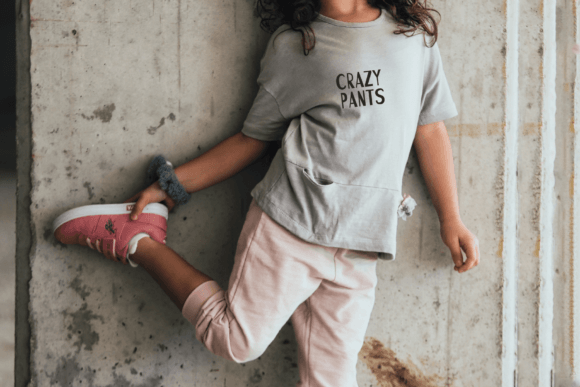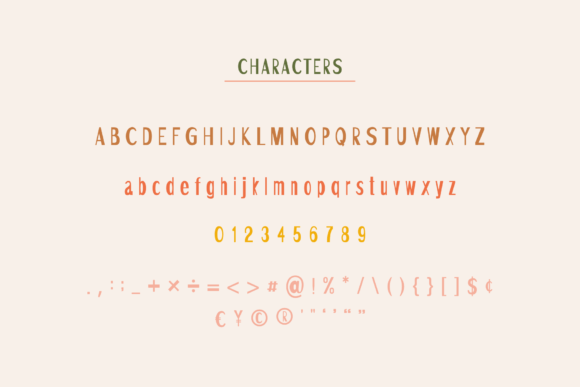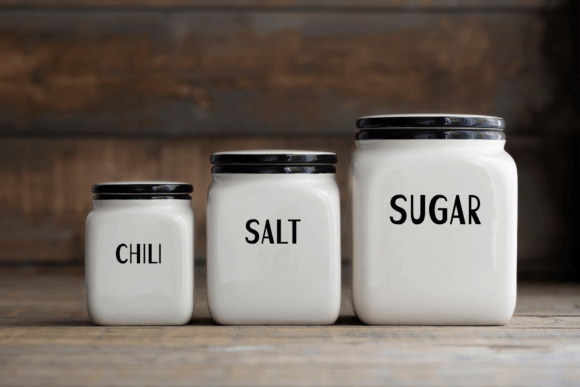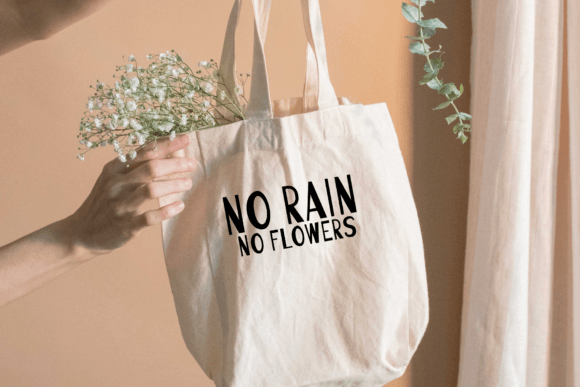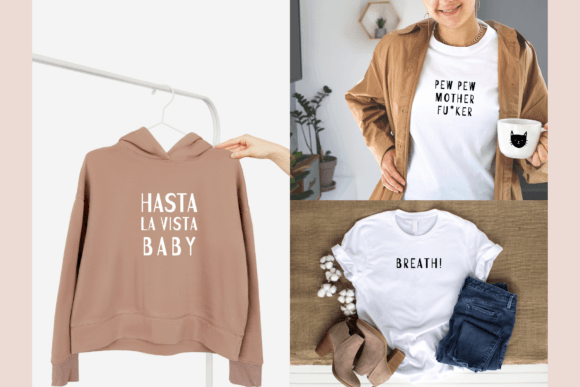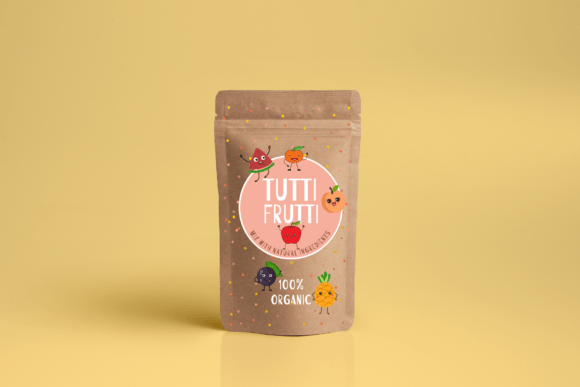
Apricot Jam Font: The Sweetest Addition to Your Design Projects
Are you on the hunt for a font that adds a touch of whimsy and fun to your design projects? Look no further than Apricot Jam, a sweet and quirky display font that’s perfect for creating super cute logos, branding, and a wide range of craft projects. In this article, we’ll dive into the world of Apricot Jam and explore its endless possibilities for designers and crafters alike.
What is Apricot Jam Font?
Apricot Jam is a display font that’s as sweet as its name suggests. With its playful and cheerful vibe, this font is designed to add a fun and joyful touch to any design project. Whether you’re a designer, crafter, or DIY enthusiast, Apricot Jam is the perfect choice for creating unique and eye-catching designs that stand out from the crowd.
Uses for Apricot Jam Font
The versatility of Apricot Jam font is one of its most appealing features. Here are just a few ideas for using this delightful font in your design projects:
- Logos and Branding: Create a memorable brand identity with Apricot Jam. Its playful and quirky vibe makes it perfect for businesses that want to stand out and make a statement.
- Notebooks and Journals: Add a personal touch to your notebooks and journals with Apricot Jam. This font is perfect for creating custom covers, title pages, and interior designs.
- Labels and Stickers: Create fun and colorful labels and stickers with Apricot Jam. These are perfect for decorating planners, laptops, and water bottles.
- Blogs and Quotes: Add a touch of whimsy to your blog posts and quotes with Apricot Jam. This font is perfect for creating visually appealing graphics that grab attention.
- Greeting Cards: Create one-of-a-kind greeting cards for special occasions with Apricot Jam. This font is perfect for making your cards stand out from the crowd.
- Apparel and Accessories: Design custom apparel, tea towels, pillows, and mugs with Apricot Jam. This font is perfect for creating fun and quirky designs that make a statement.
- Baby Clothing and Picture Books: Apricot Jam is a great choice for designing baby clothing, picture books, and other nursery decor. Its playful and cheerful vibe creates a warm and welcoming atmosphere.
Why Choose Apricot Jam Font?
So why choose Apricot Jam font for your design projects? Here are just a few reasons:
- Unique and Playful: Apricot Jam is a one-of-a-kind font that adds a touch of whimsy and fun to any design project.
- Versatile: This font is perfect for a wide range of design projects, from logos and branding to craft projects and DIY designs.
- Easy to Read: Despite its playful vibe, Apricot Jam is easy to read and understand, making it perfect for use in a variety of contexts.
- Customizable: Apricot Jam can be customized to fit your design needs. Experiment with different colors, sizes, and styles to create a unique look.
Tips for Using Apricot Jam Font
Here are a few tips for getting the most out of Apricot Jam font:
- Pair with Other Fonts: Apricot Jam pairs well with other fonts, especially sans-serif fonts. Experiment with different combinations to create a unique look.
- Use Bright Colors: Apricot Jam is a playful font that lends itself well to bright and bold colors. Experiment with different color combinations to create a fun and eye-catching design.
- Experiment with Sizes: Apricot Jam can be used in a variety of sizes, from large display text to smaller body text. Experiment with different sizes to create visual interest.
| Font Name | Apricot Jam Font |
Apricot Jam font is a sweet and quirky display font that’s perfect for adding a touch of fun and whimsy to your design projects. With its versatility, playfulness, and ease of use, this font is a great choice for designers, crafters, and DIY enthusiasts alike. Whether you’re creating logos and branding, craft projects, or DIY designs, Apricot Jam is the perfect choice for making a statement and standing out from the crowd.